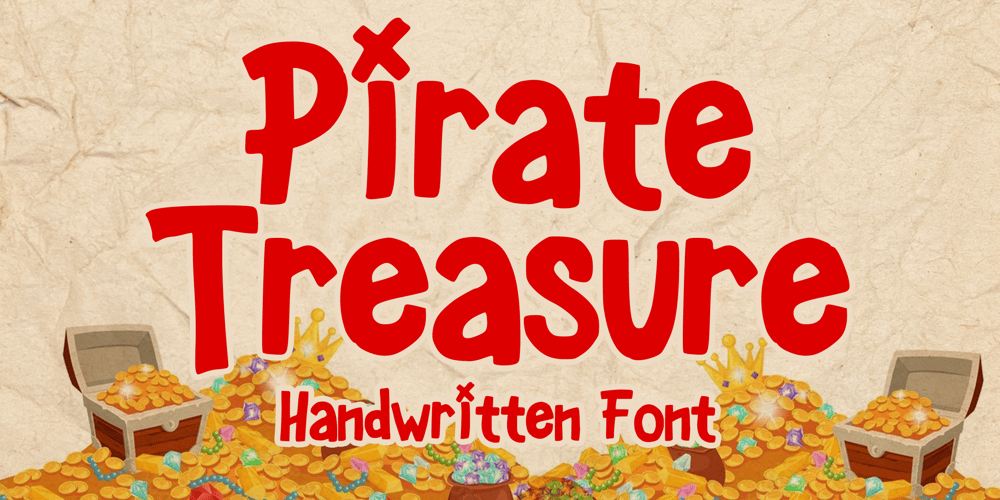
Pirate Treasure
Pirate Treasure font
Pirate Treasure Font Family was designed by Gabriel Valentinus and published by Mvmet. Pirate Treasure contains 1 styles and family package options. Pirate Treasure is a fun pirate-themed display font, you can use it on your daily activities, your fun projects, birthday, school, and else. Use this font for many design ideas such as mugs, t-shirt designs, posters, stickers, greeting cards, and many more. This font will add a cool touch to your designs!